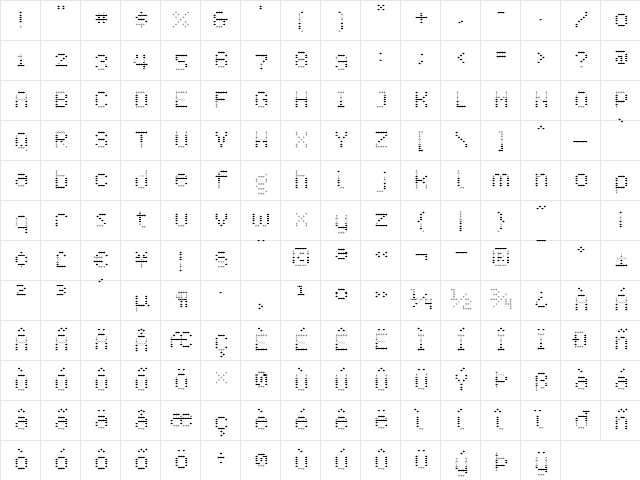
Crossover ExtraLight
Style: ExtraLight
Foundry: YouWorkForThem
Designer: Michael Cina
Crossover Family
Design Context for Crossover
Crossover is a composed and adaptable typeface that performs quietly and consistently across a wide range of design contexts. Its slender proportions lend an understated elegance to any composition.